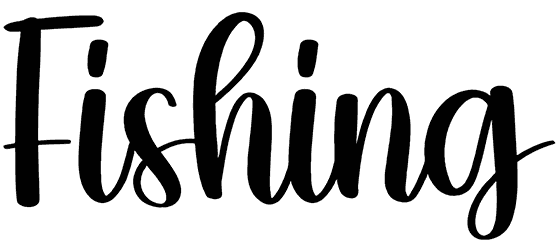
Fishing Font
You can always count on a modern and casual letterform for numerous designs with different topics, and this cursive font is one of these options. Fishing font has a smooth and natural face, and it will make your project memorable. With almost A-Z characters, this script font could be applied to different short or long texts.